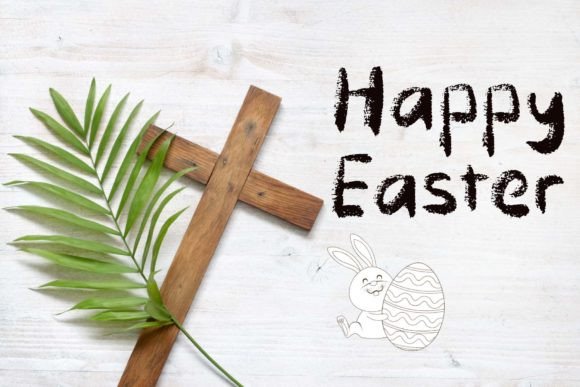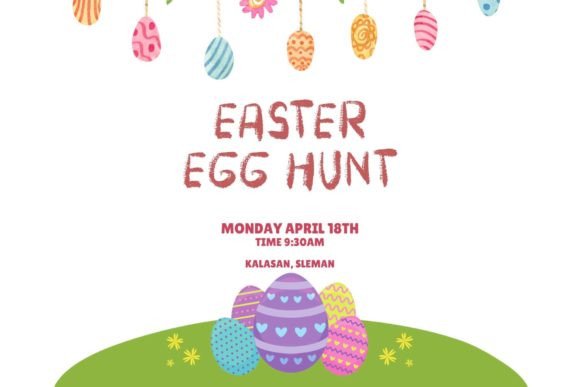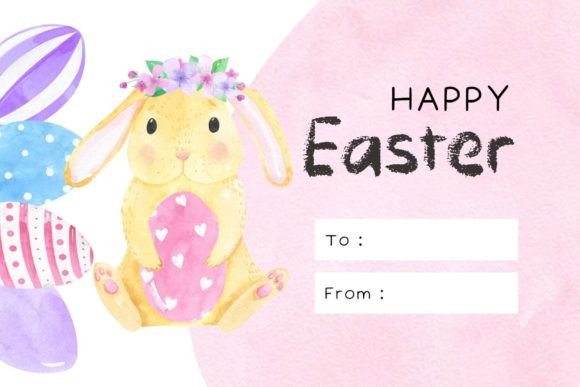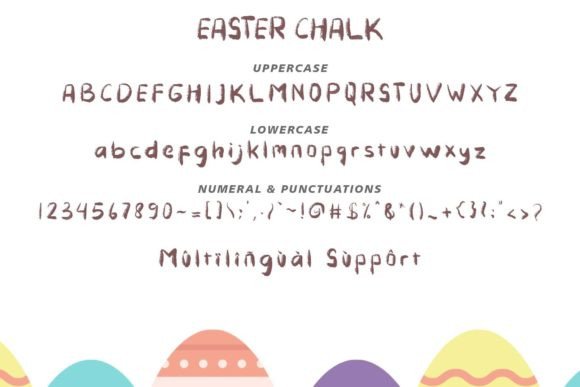
Easter Chalk Font: A Charming and Whimsical Typeface for Your Creative Projects
Are you looking for a font that can add a touch of warmth and character to your designs? Look no further than the Easter Chalk Font. This charming and beautiful chalk font evokes a sense of whimsy and cuteness, making it perfect for projects that require a cozy and inviting feel. In this article, we’ll take a closer look at the Easter Chalk Font, its features, and how you can use it to elevate your creative projects.
A Hand-Drawn Style that Captures the Essence of a Bygone Era
The Easter Chalk Font is a hand-drawn typeface that captures the essence of a bygone era. Its unique and charming style is reminiscent of traditional chalkboard lettering, with a touch of modern flair. The font’s hand-drawn style gives it a personal and organic feel, making it perfect for projects that require a human touch.
Beautiful Flourishes and Imperfections that Add Character
One of the standout features of the Easter Chalk Font is its beautiful flourishes and imperfections. The font’s hand-drawn style means that each letter has its own unique character and quirks, adding a touch of warmth and personality to your designs. The flourishes and imperfections also give the font a sense of movement and energy, making it perfect for projects that require a dynamic and playful feel.
Ideal for Projects that Require a Cozy and Inviting Feel
The Easter Chalk Font is ideal for projects that require a cozy and inviting feel, such as:
• Invitations: Whether you’re planning a wedding, birthday party, or baby shower, the Easter Chalk Font is perfect for creating beautiful and eye-catching invitations.
• Menus: Add a touch of warmth and character to your restaurant or cafe menu with the Easter Chalk Font.
• Signage: The Easter Chalk Font is perfect for creating eye-catching signage for your business or event.
• Stationery: Add a personal touch to your stationery with the Easter Chalk Font, perfect for letters, cards, and more.
Why Designers and Crafters Love the Easter Chalk Font
Designers and crafters love the Easter Chalk Font for its unique and charming style. Here are just a few reasons why:
• Unique and eye-catching: The Easter Chalk Font is a one-of-a-kind typeface that will make your designs stand out from the crowd.
• Versatile: The Easter Chalk Font can be used for a wide range of projects, from invitations and menus to signage and stationery.
• High-quality: The font is high-quality and scalable, making it perfect for large and small projects alike.
Tips for Using the Easter Chalk Font
Here are a few tips for using the Easter Chalk Font in your designs:
• Pair with other fonts: The Easter Chalk Font pairs well with other fonts, such as sans-serif and script fonts.
• Use for headings: The Easter Chalk Font is perfect for headings and titles, adding a touch of whimsy and character to your designs.
• Add embellishments: Consider adding embellishments, such as flowers or ribbons, to give your designs an extra touch of personality.
The Easter Chalk Font is a charming and beautiful typeface that’s perfect for designers and crafters looking to add a touch of whimsy and character to their projects. With its hand-drawn style, beautiful flourishes and imperfections, and cozy and inviting feel, this font is ideal for a wide range of projects, from invitations and menus to signage and stationery. Whether you’re a seasoned designer or a crafter just starting out, the Easter Chalk Font is sure to become a favorite in your collection.